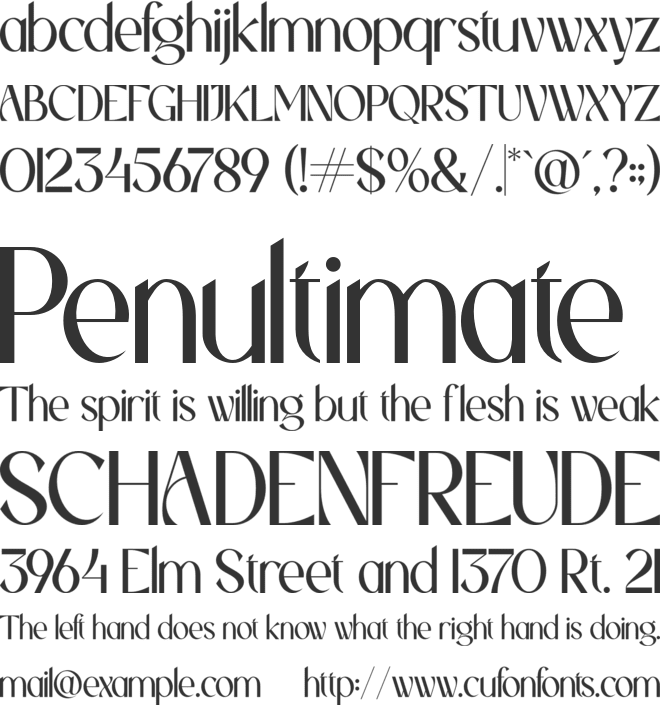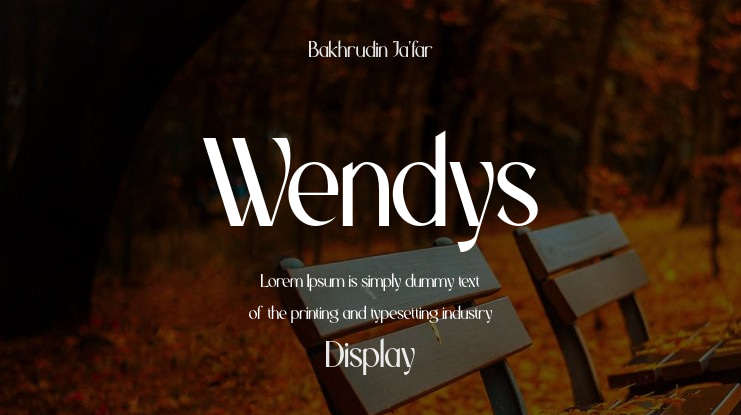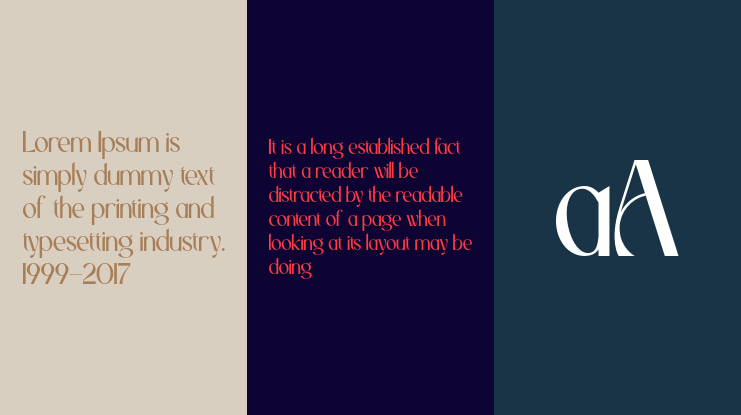
Wendys Font
a modern and stylish style that has unique stroke characters, which is very easy to combine with other fonts, this will be very useful for designers making logo and layout designs.